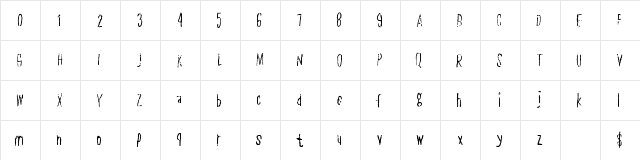
PlainSlice Regular
| Foundry | Xerographer Fonts |
| Designer | Xerographer Fonts Max Infeld |
Design Context for PlainSlice Typeface
PlainSlice takes a measured approach to typography — its balanced proportions and neutral character make it a reliable workhorse for both digital and print work.